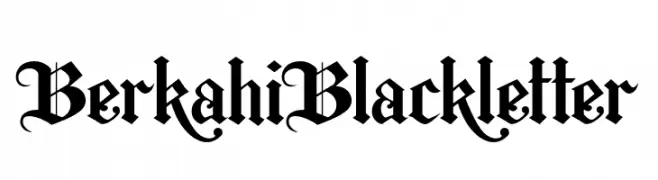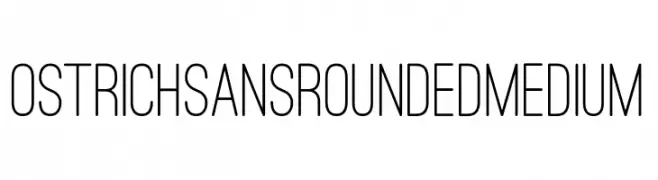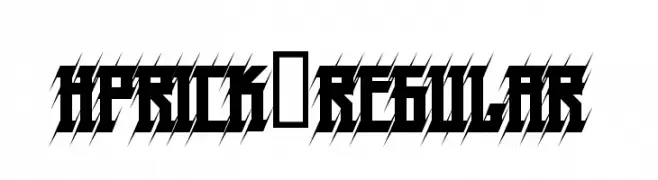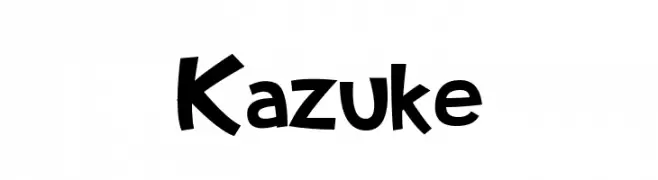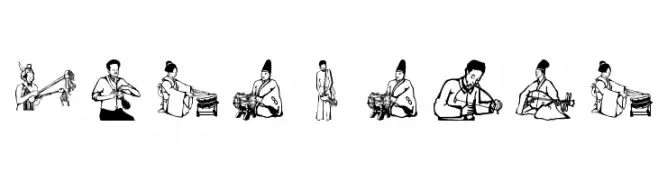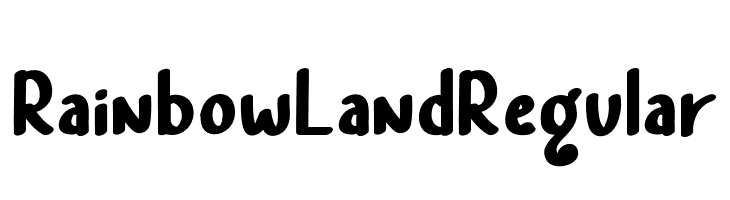
A traditional Blackletter font with intricate, ornate designs and sharp, angular lines.
A modern, rounded sans-serif font with a clean and approachable style.
A bold, angular blackletter-inspired font with a dramatic and authoritative style.
A playful, bold, hand-drawn font with a whimsical style.
Cartoonish, musician-themed pictorial font.
A dynamic, cursive script font with a natural, handwritten feel.